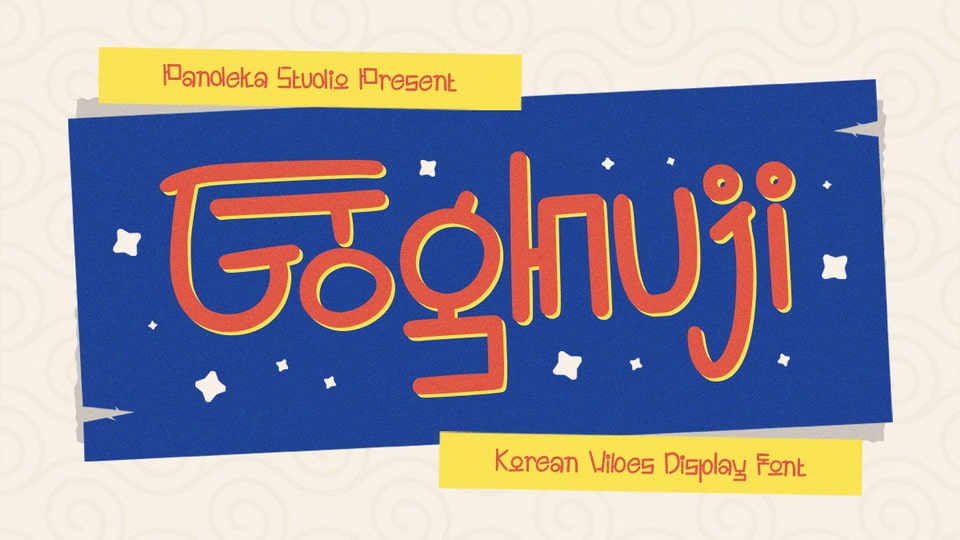
Download Goghuji font, a hand drawn typeface that combines traditional Korean calligraphy with a modern aesthetic, creating a bold and stylish display typography.